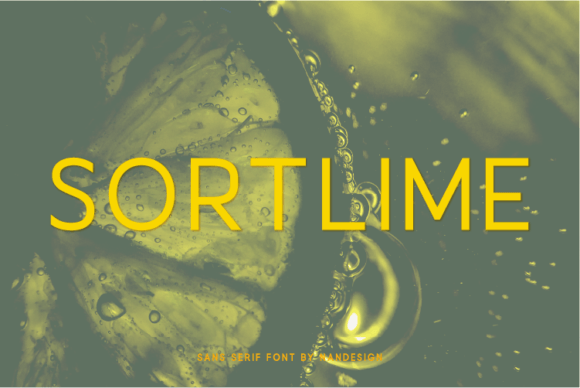
Welcome to the realm of typography mastery, where fonts come alive and stories take flight. Our Sortlime Font stands as a testament to the power of sans serif elegance, ready to elevate your design projects to new heights. Created by the imaginative minds at Nan Design, Sortlime is more than just a font; it's an artistic gateway to captivating creations.
Unleash the beauty of Sortlime in your magazine designs, where words dance with grace and clarity. Its crisp lines and flowing curves bring a touch of sophisticated charm to every headline, article, and caption. Imagine your magazine pages transformed, with Sortlime guiding readers through an immersive journey of visual delight.
But Sortlime's versatility doesn't stop at magazines. Its adaptability extends to invitations, where it adds a touch of timeless elegance to special occasions. From save-the-dates to wedding invitations, Sortlime's presence elevates the significance of each event. It's a font that speaks of love, celebration, and enduring memories.
Step into the world of logos and branding, where Sortlime weaves its magic as a symbol of distinction. Its sharp edges and smooth curves create an unforgettable visual identity that sets your brand apart. Let Sortlime be the cornerstone of your company's visual language, speaking volumes about your commitment to excellence and creativity.
Beyond digital realms, Sortlime shines in the realm of print design as well. Whether it's posters, flyers, or brochures, Sortlime adds a touch of sophistication and professionalism to your marketing materials. Its readability and visual appeal ensure that your message captivates audiences, leaving a lasting impression.
But the true magic of Sortlime lies in its ability to spark creativity. It's a font that encourages experimentation, inviting you to explore new design horizons. Let Sortlime be your muse, igniting your imagination and propelling your creative vision to new heights.